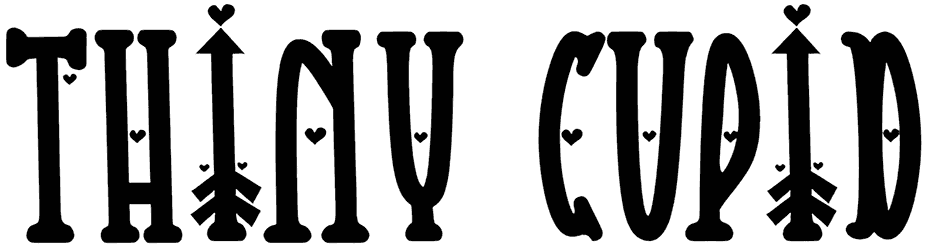
Thiny Cupid Font
Do you want to put love as the main ingredient in your design? This Valentine font with its bow and arrow face, named Thiny Cupid, will make this happen. You don’t have access to lowercase letters, but this decorative fo…
Do you want to put love as the main ingredient in your design? This Valentine font with its bow and arrow face, named Thiny Cupid, will make this happen. You don’t have access to lowercase letters, but this decorative font can be a delightful choice for many designs, namely banners, posters, cards, invitations, and the like.